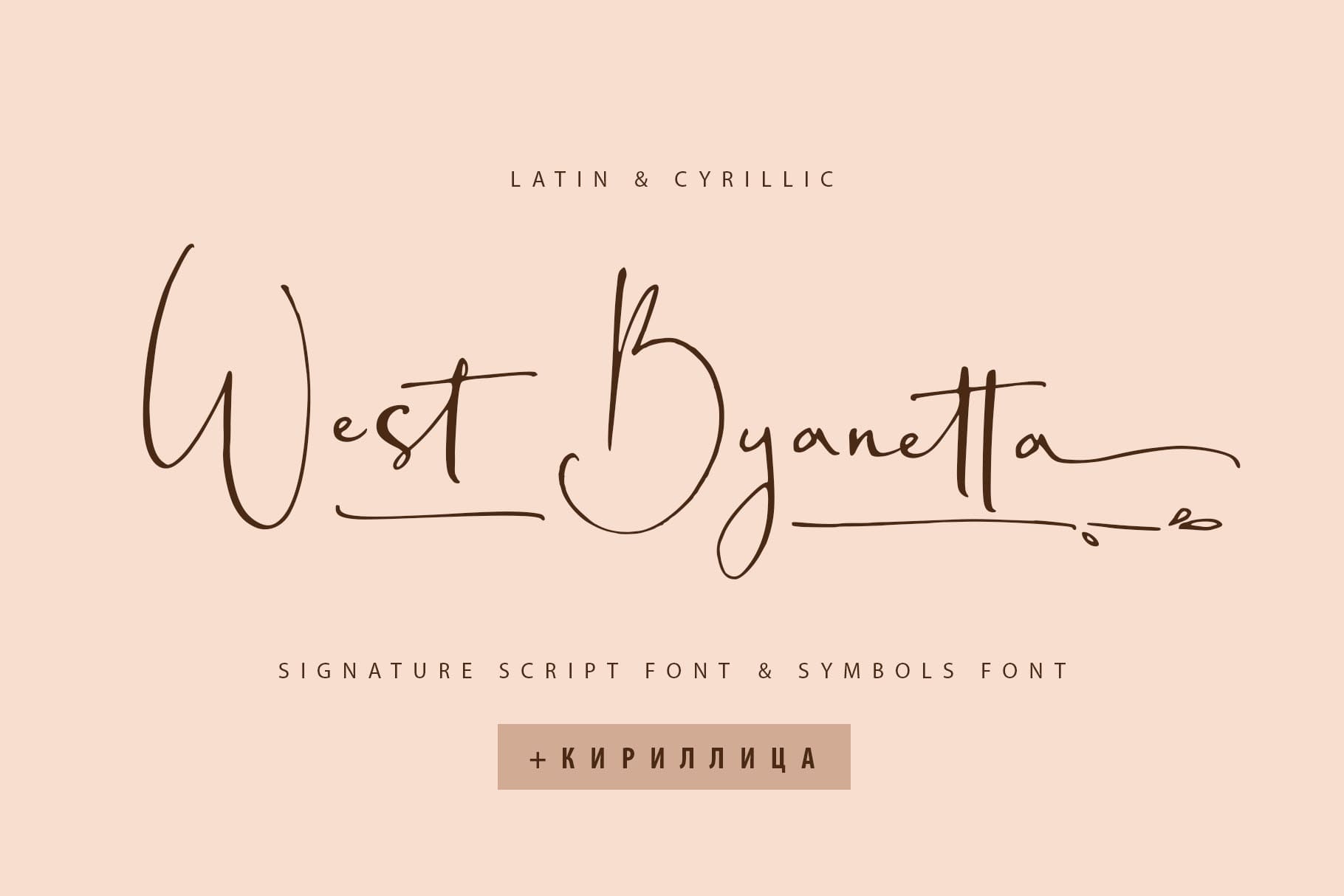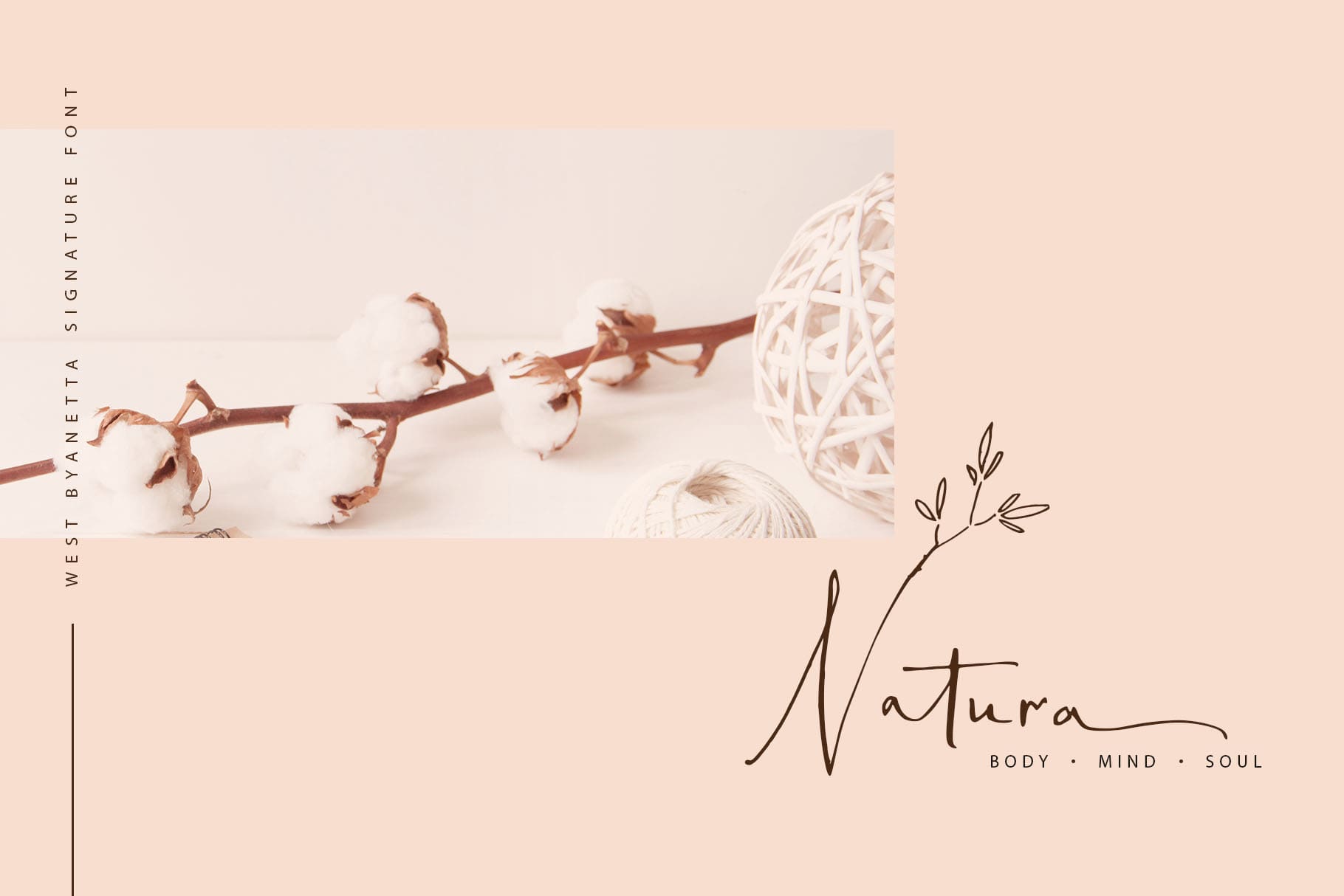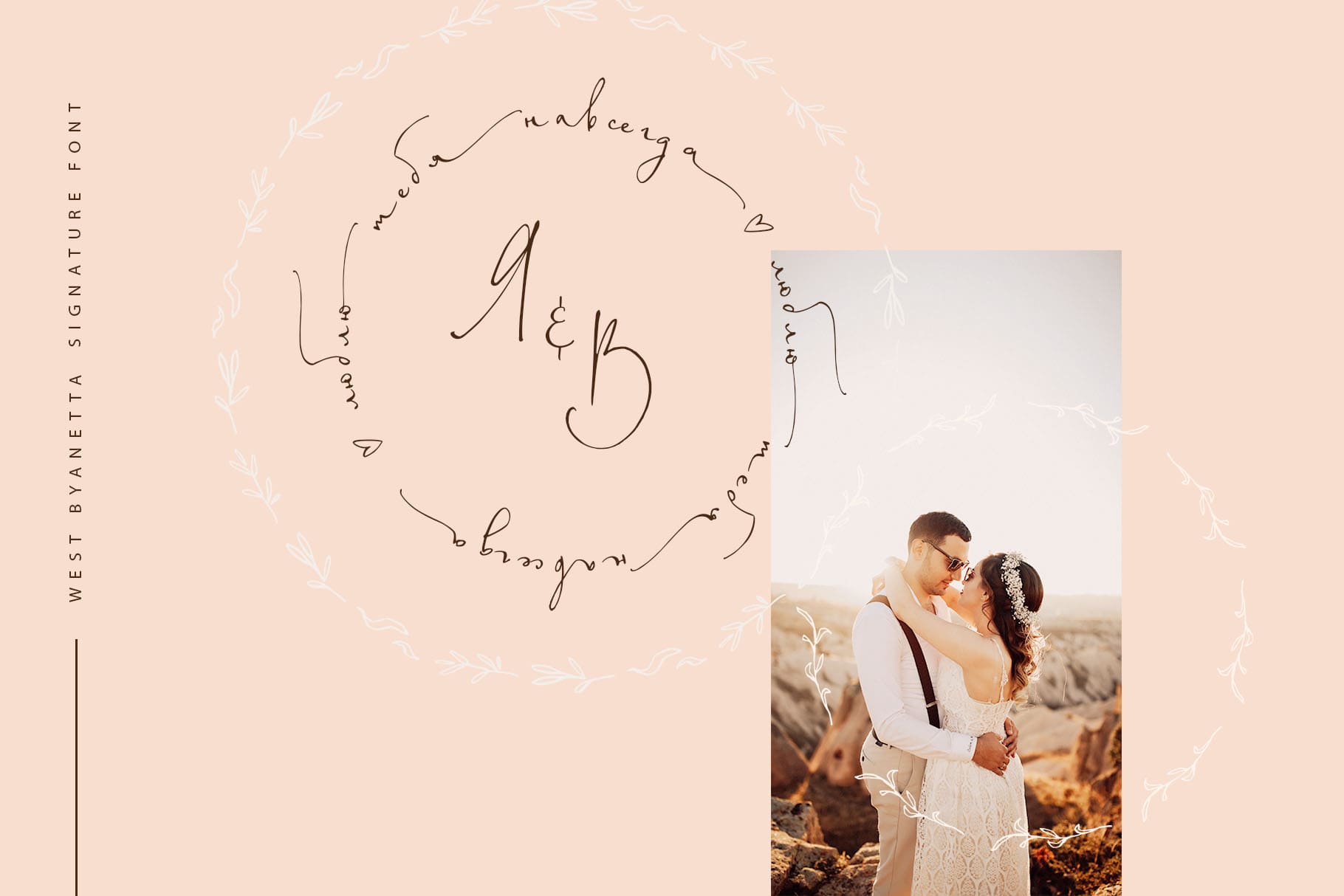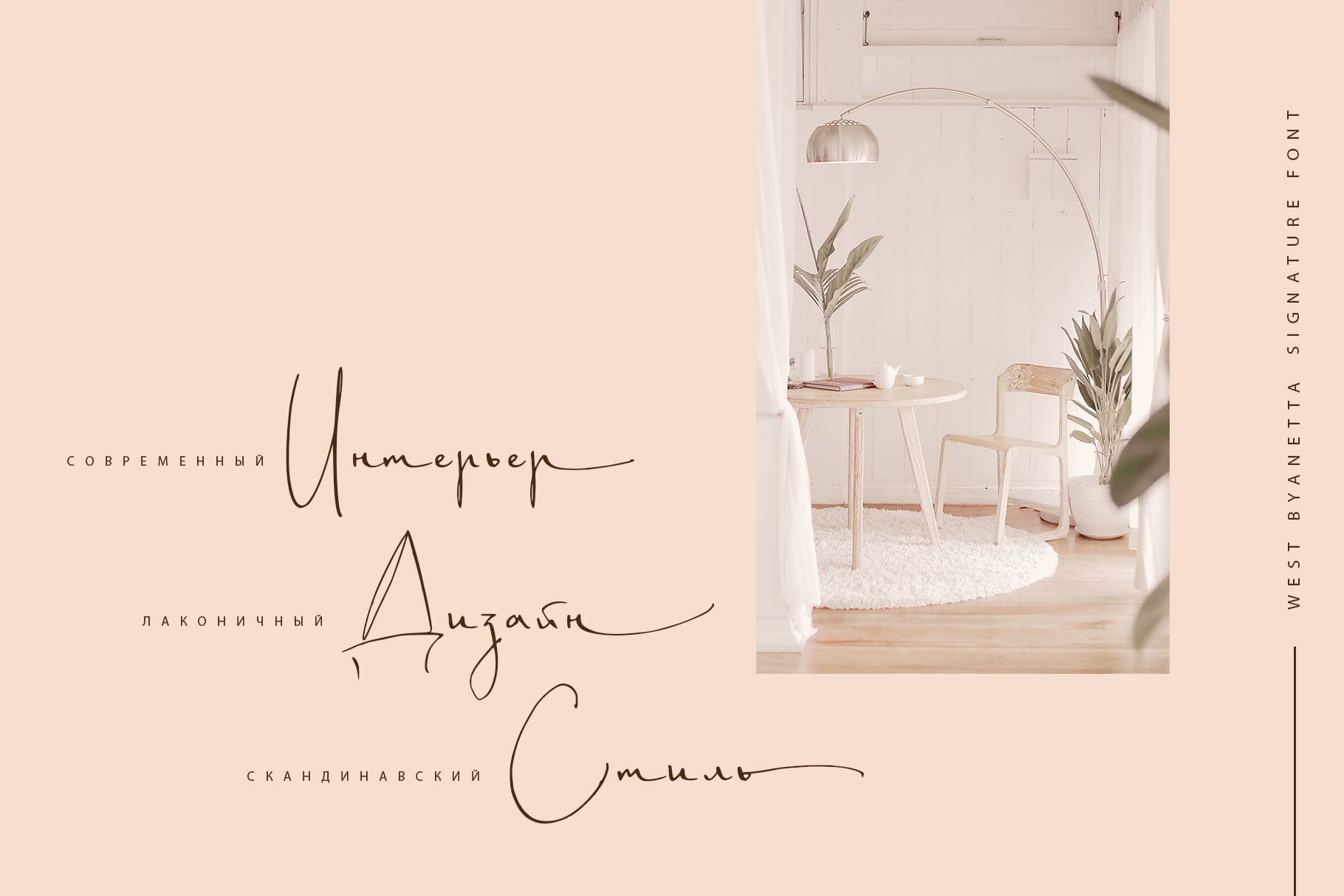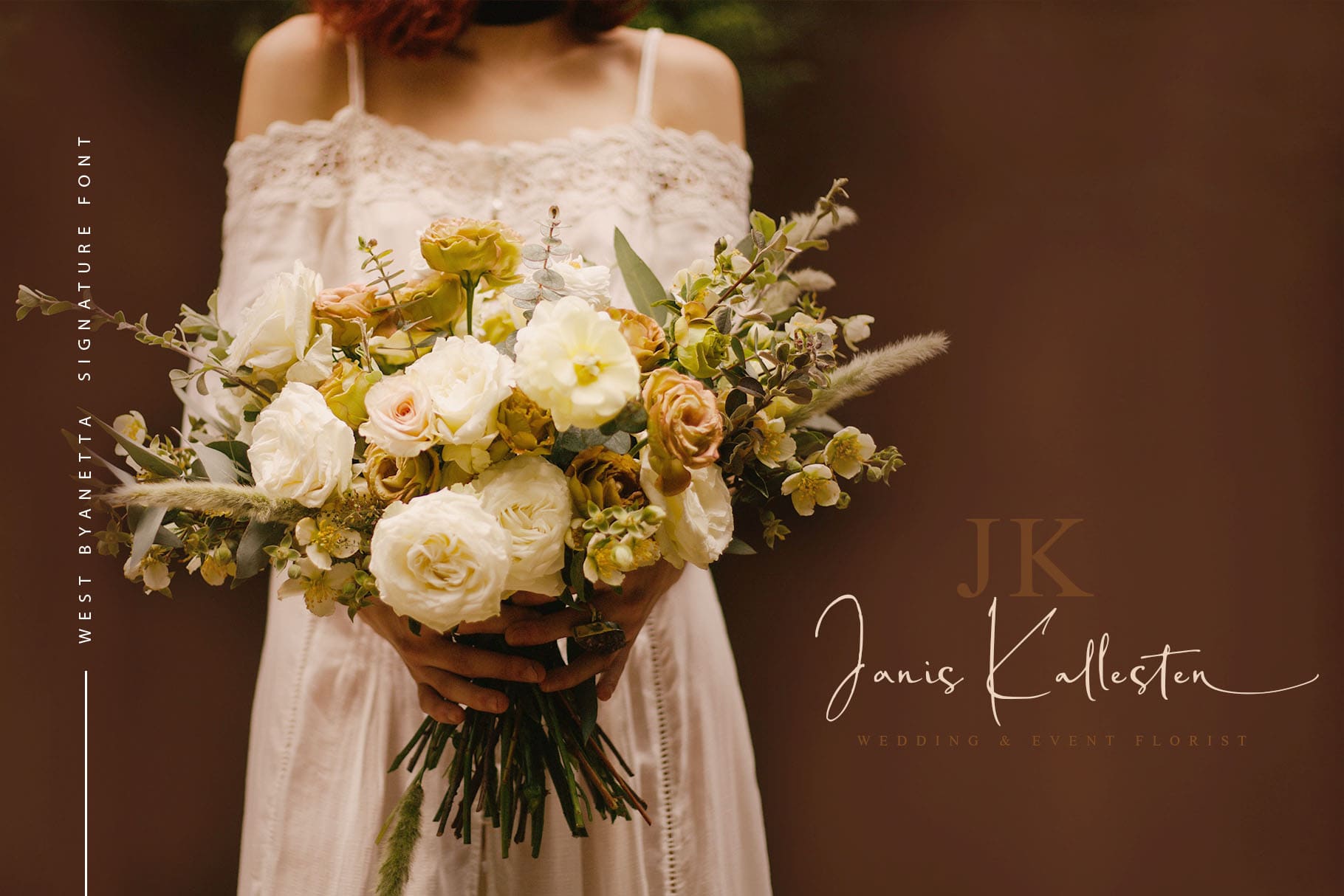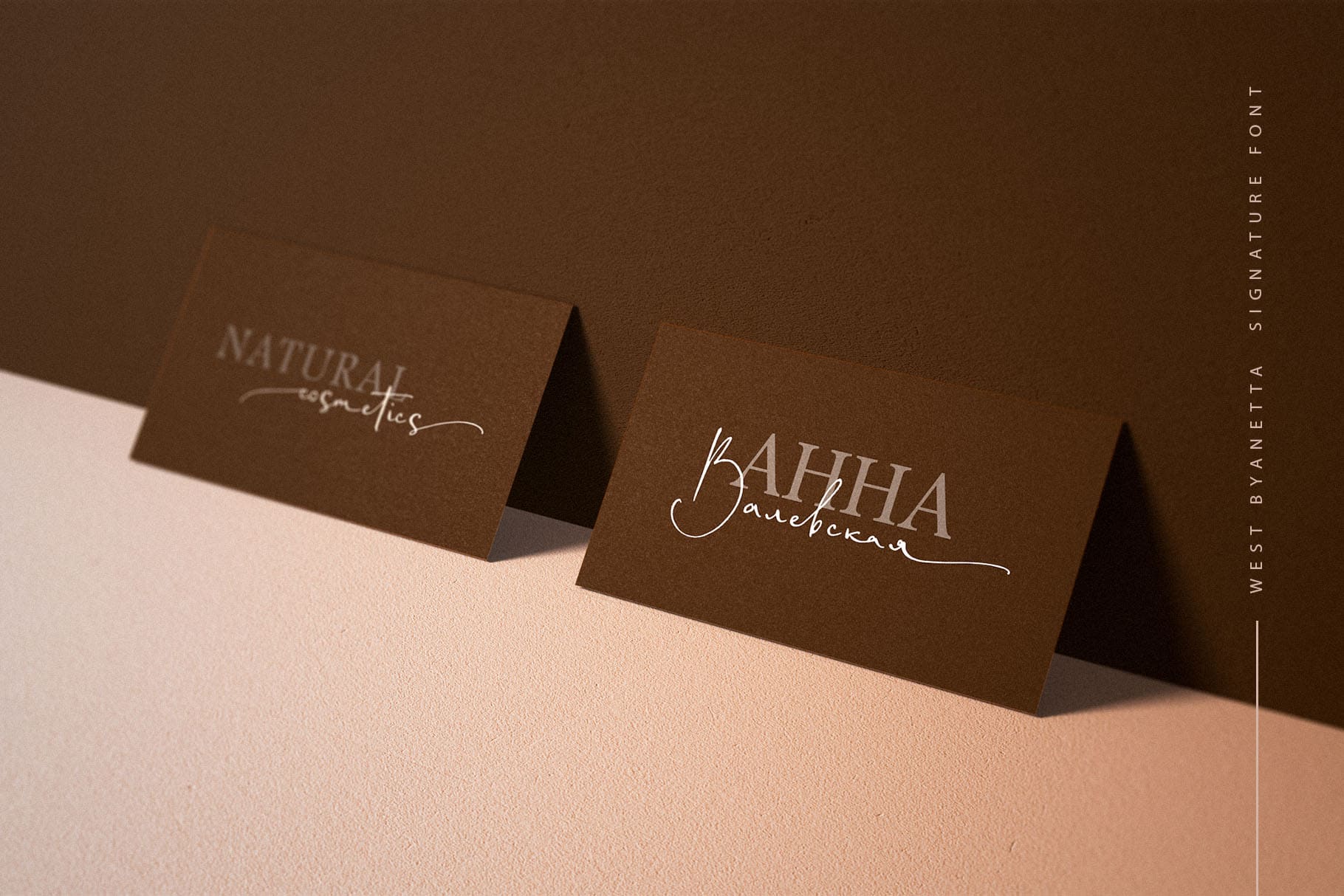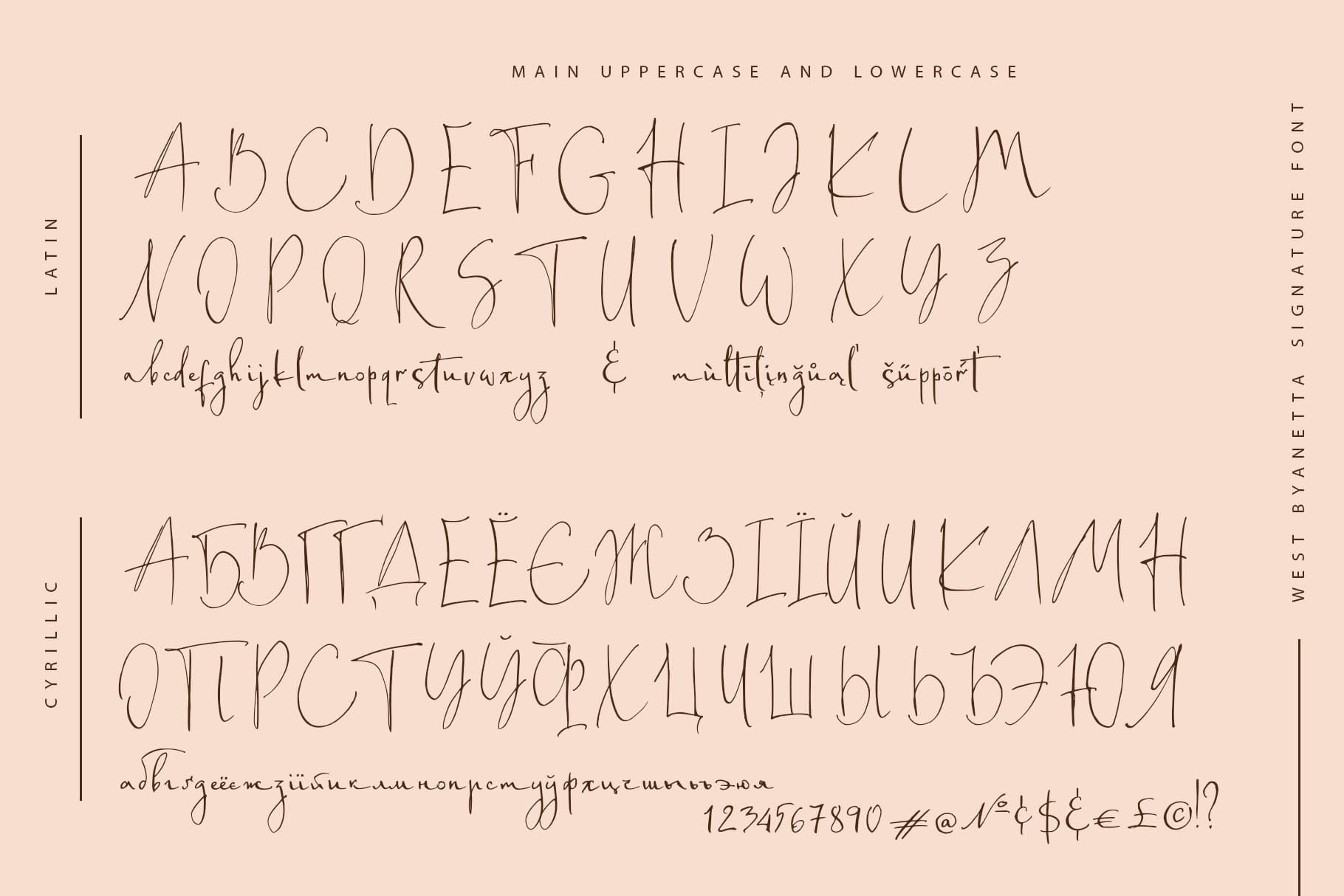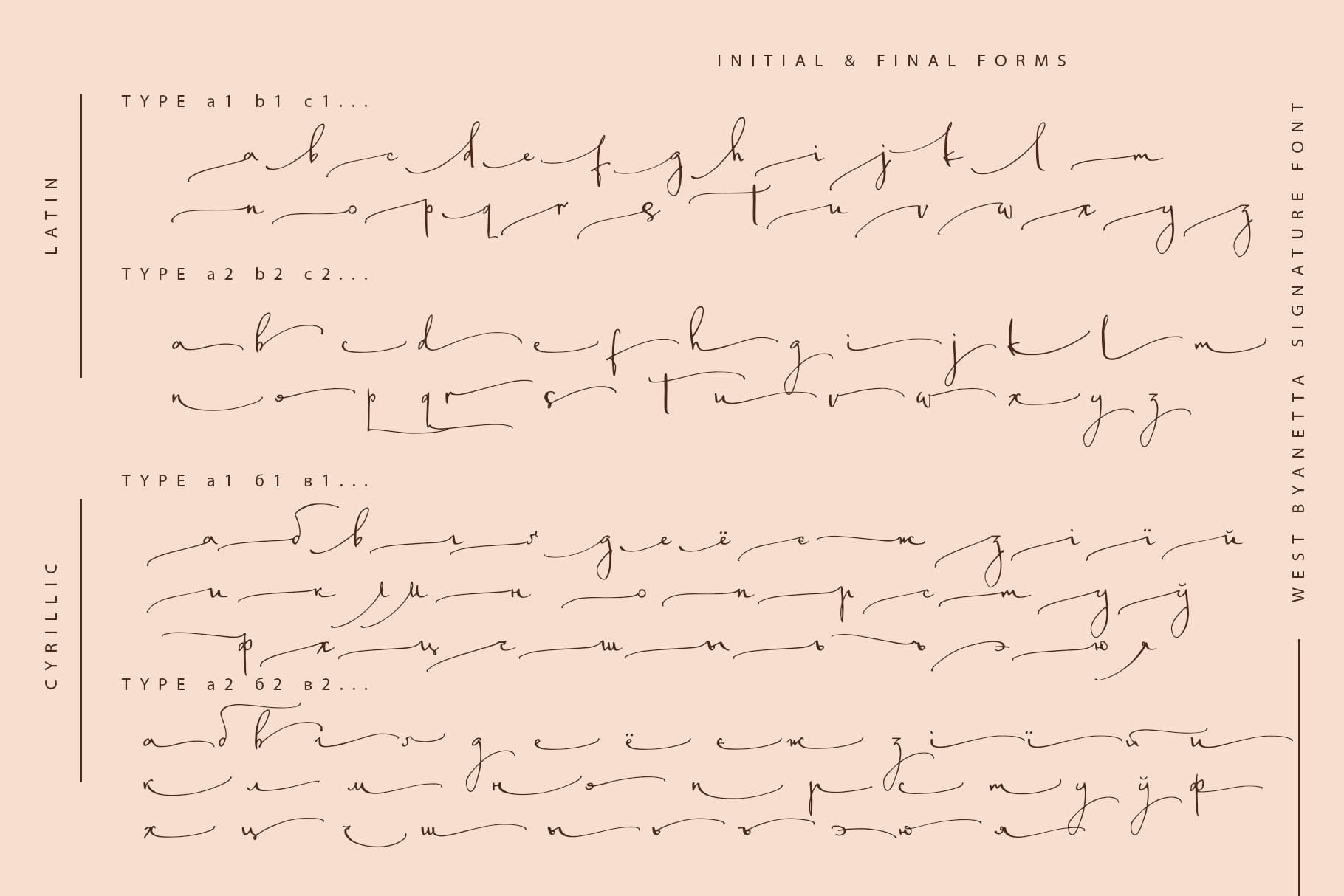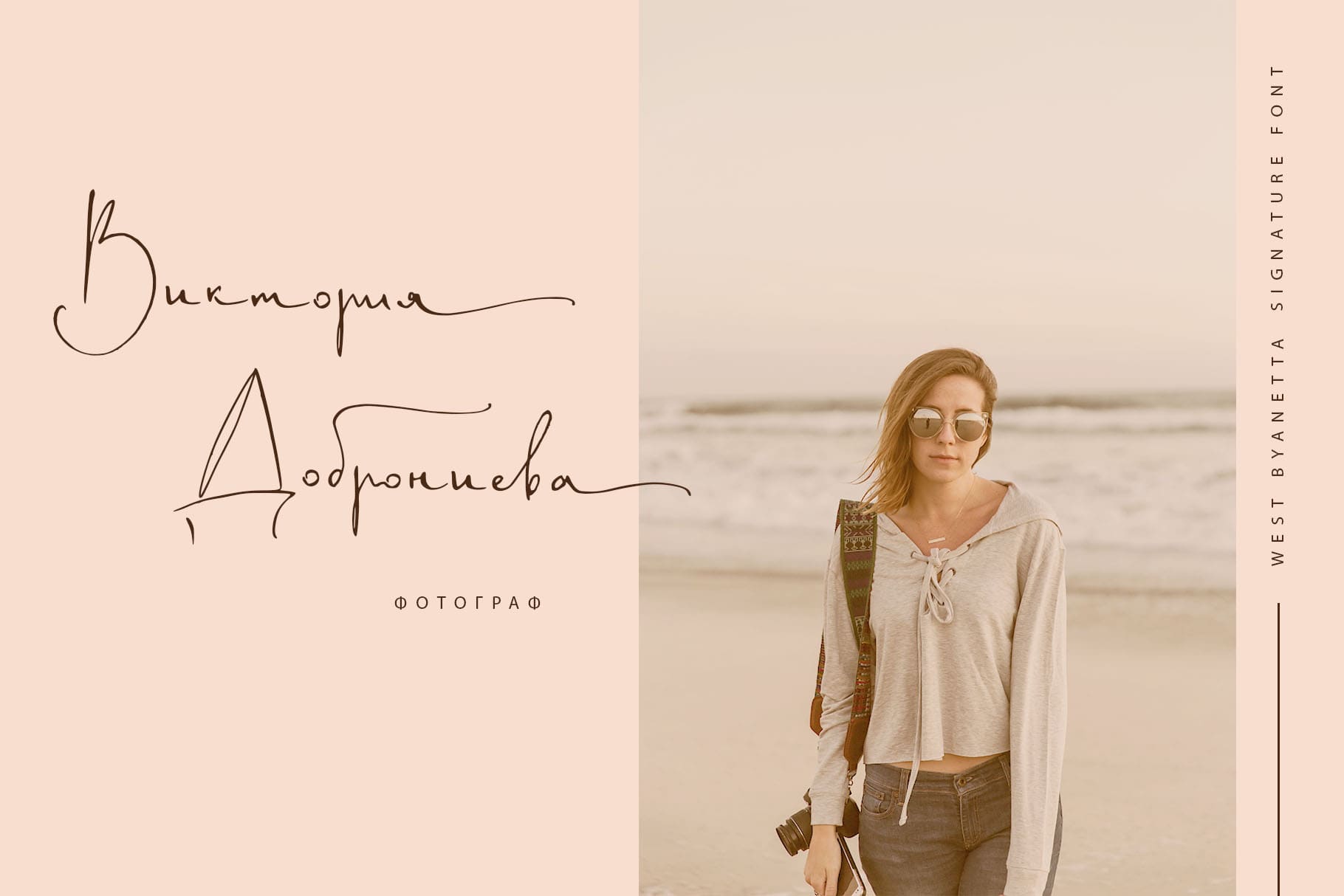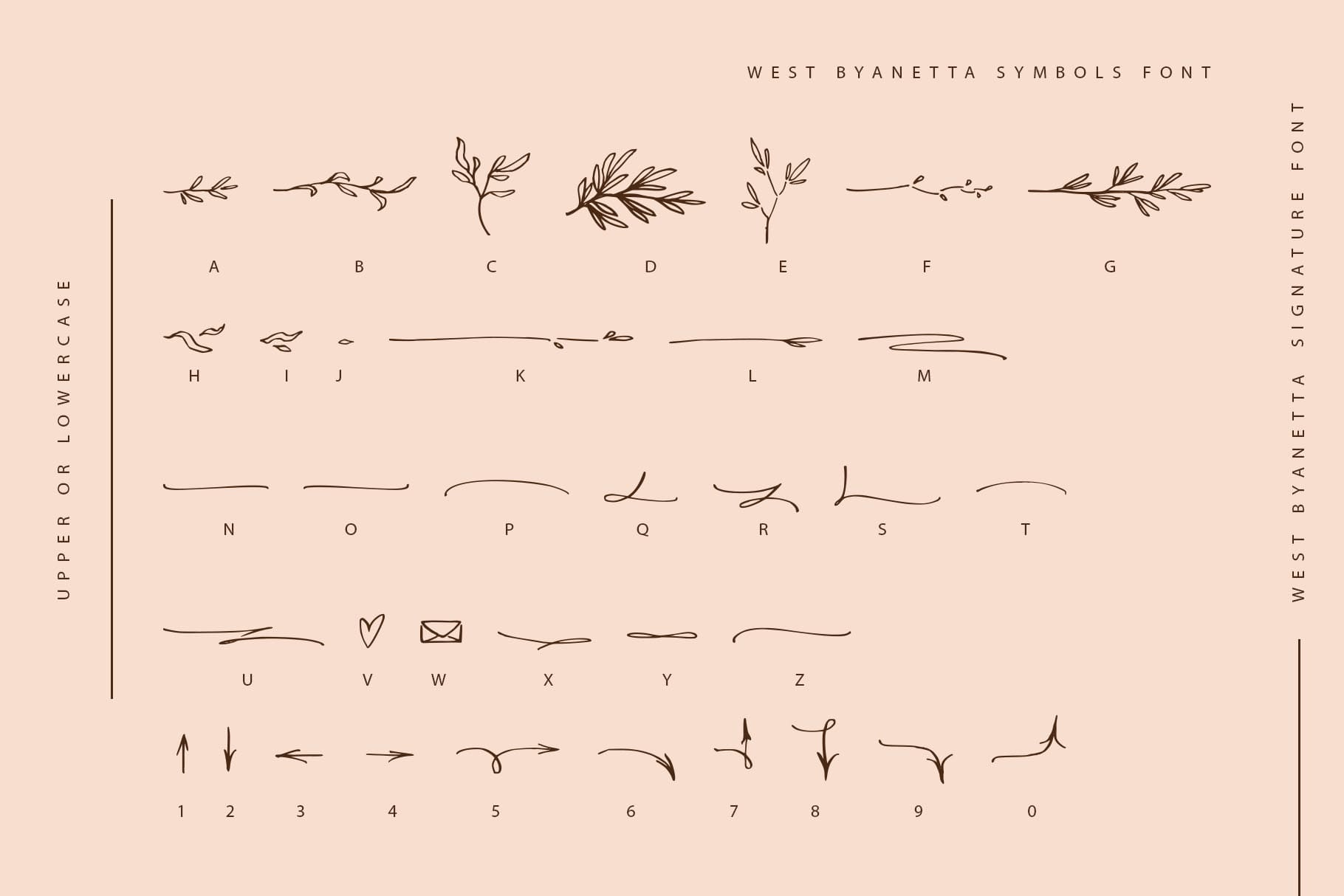
West Byanetta Family (2 fonts)
From Ira Dvilyuk
Multilingual Support for 31 languages: Latin glyphs for Afrikaans, Albanian, Basque, Bosnian, Catalan, Danish, Dutch, English, Estonian, Faroese, Filipino, Finnish, French, Galician, Indonesian, Irish, Italian, Malay, Norwegian Bokmål, Portuguese, Slovenian, Spanish, Swahili, Swedish, Turkish, Welsh, Zulu.
West Byanetta script font contains the Cyrillic glyphs too. Cyrillic glyphs support for Russian, Belorussian, Bulgarian, and Ukrainian languages.
West Byanetta script Latin part contains a full set of uppercase letters and 3 full sets of lowercase letters, (standard, initial and final forms with flourishes. To make a needed form just type a letter with a number such as a1, a2 a3...after that selecting the word and apply the Open Type Features in programs such as Adobe Illustrator, Photoshop, and others) And 40 ligatures - which can be used to create a handwritten calligraphy look.